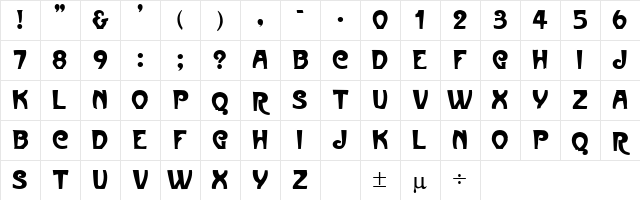
Paris Regular
Design Context for Paris
Paris is a composed and adaptable typeface that performs quietly and consistently across a wide range of design contexts.